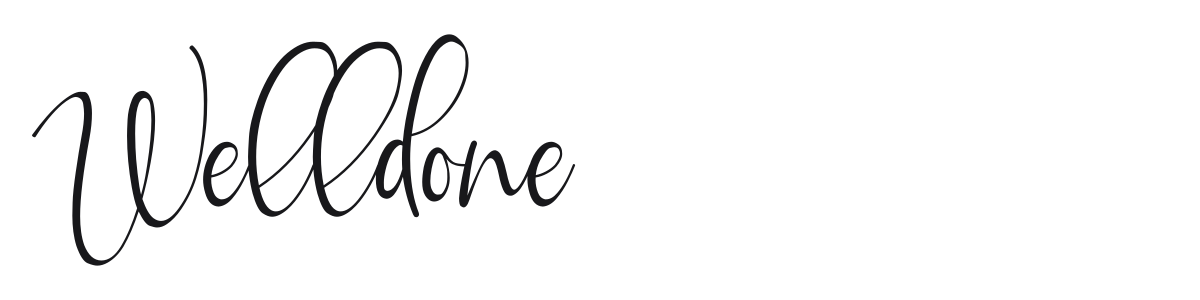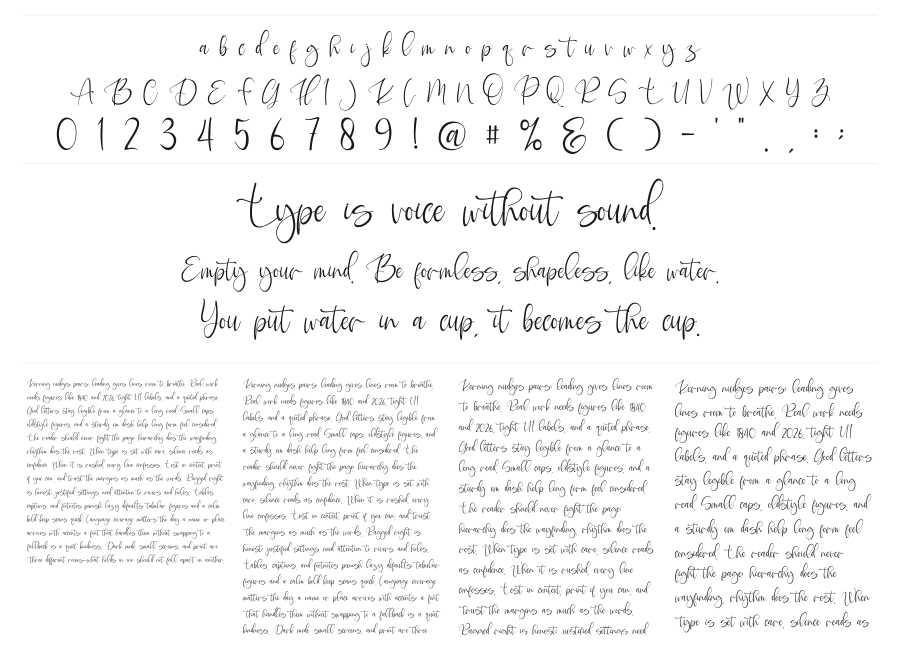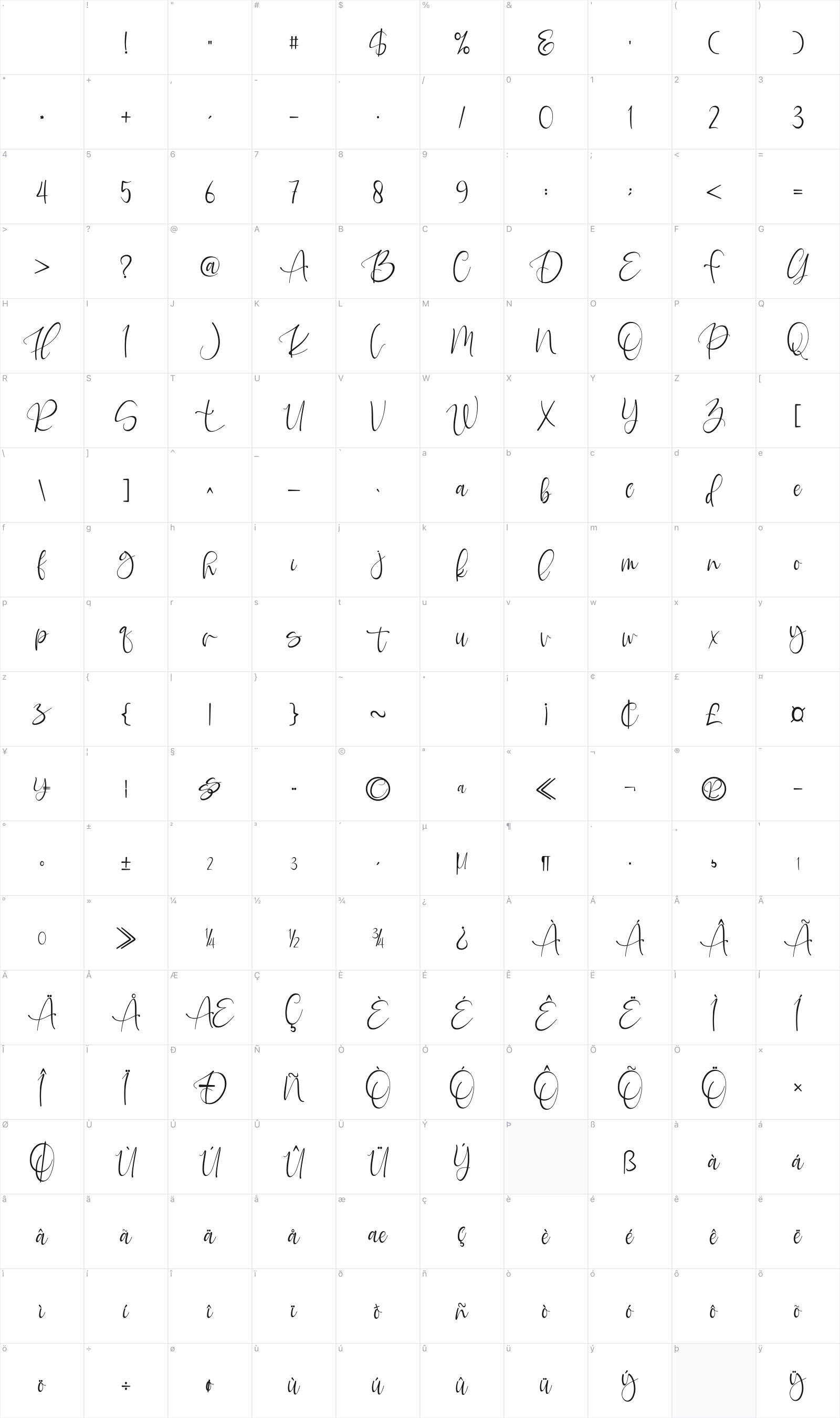
Welldone
Welldone is a flowing casual script with expressive looped ascenders and a natural, bouncing baseline rhythm. Its moderate stroke contrast between thick stems and hairline curves sits somewhere between a pen-drawn hand and modern calligraphy. The result feels warm and approachable without sacrificing elegance.